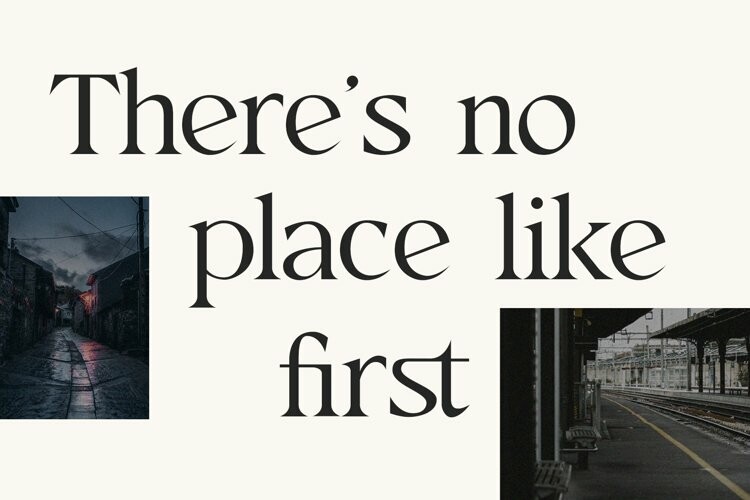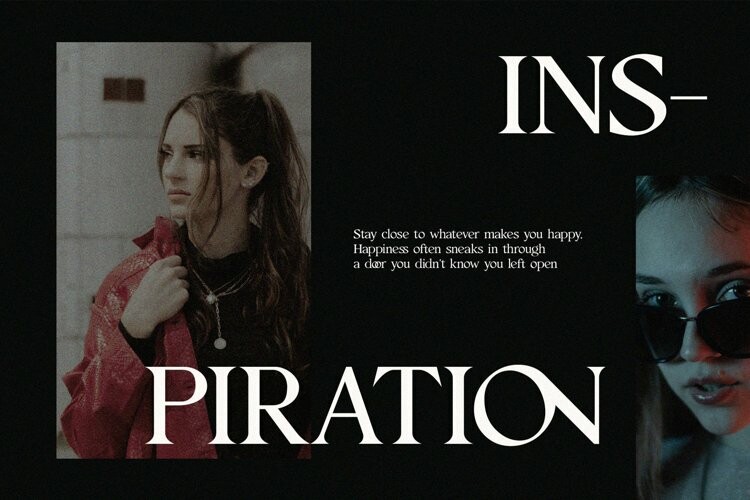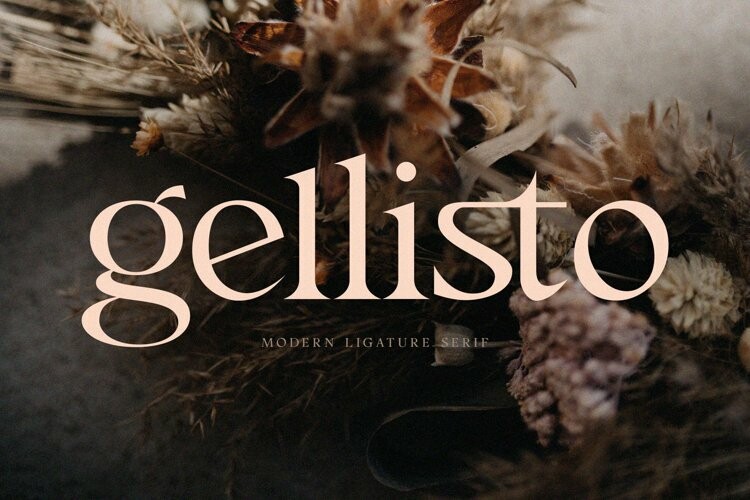
Gellisto Font
Introducing Gellisto Modern Ligature Serif.
Gellisto is a modern, elegant and classy serif typeface, best used as a display for headings, logos, branding, magazines, product packaging and invitations.
Gellisto come with clean lines and smooth curves give any project an extra touch of class.